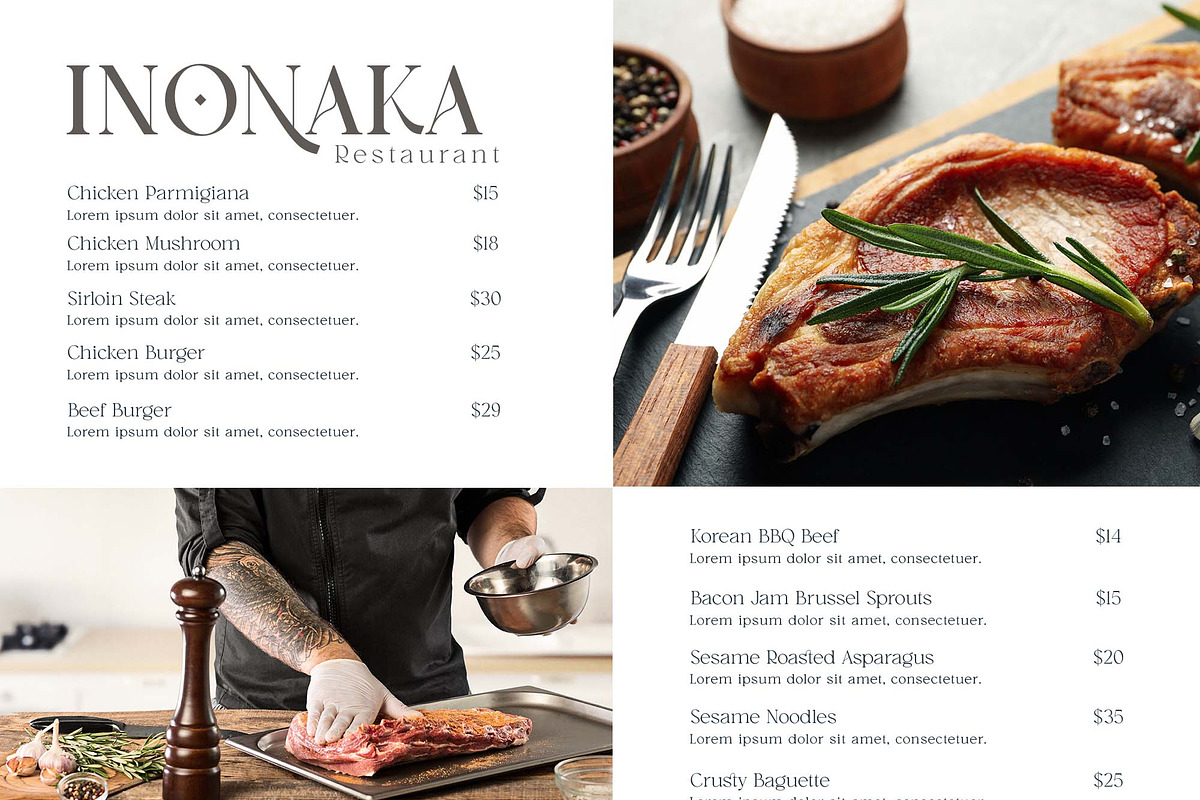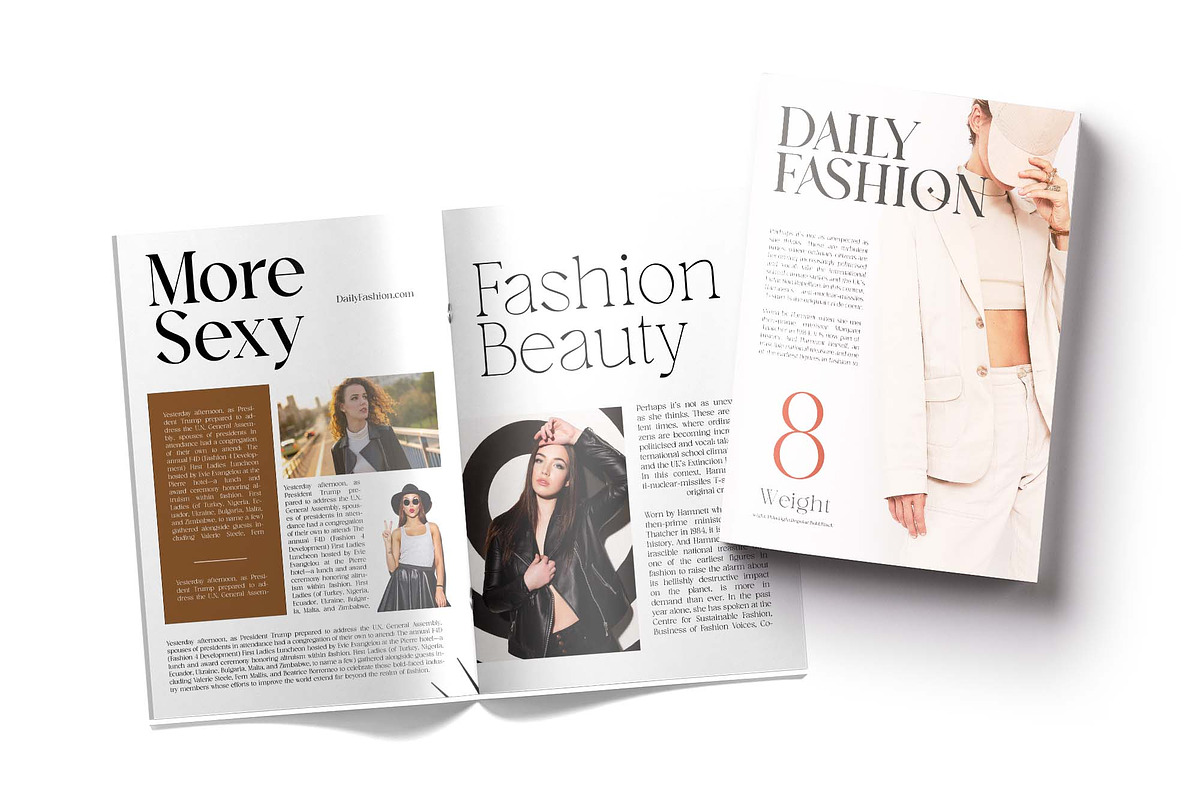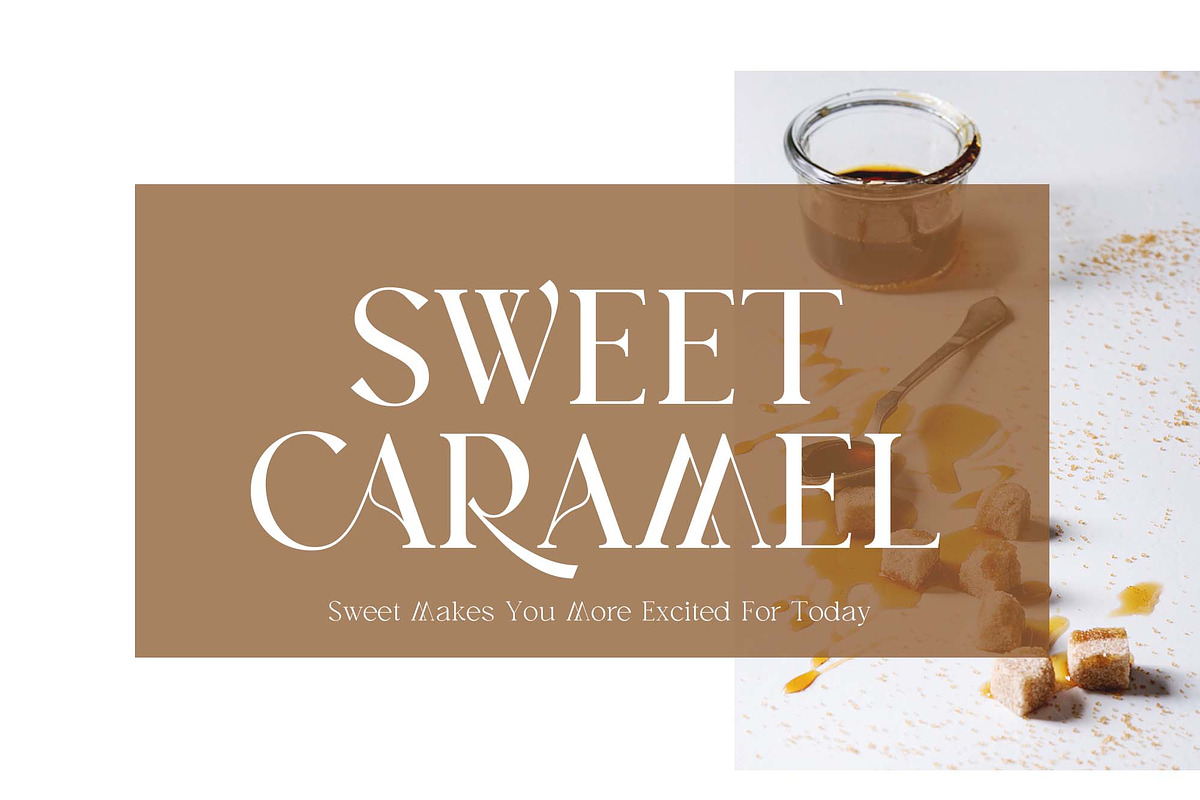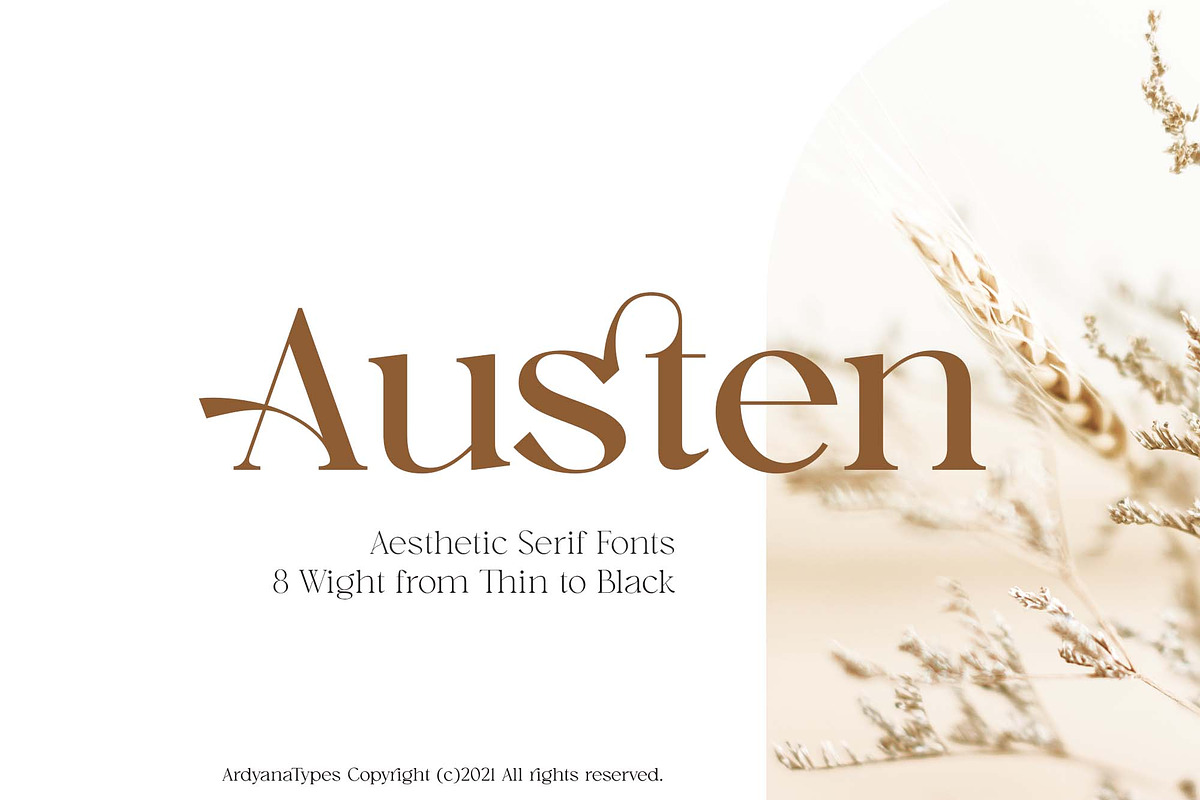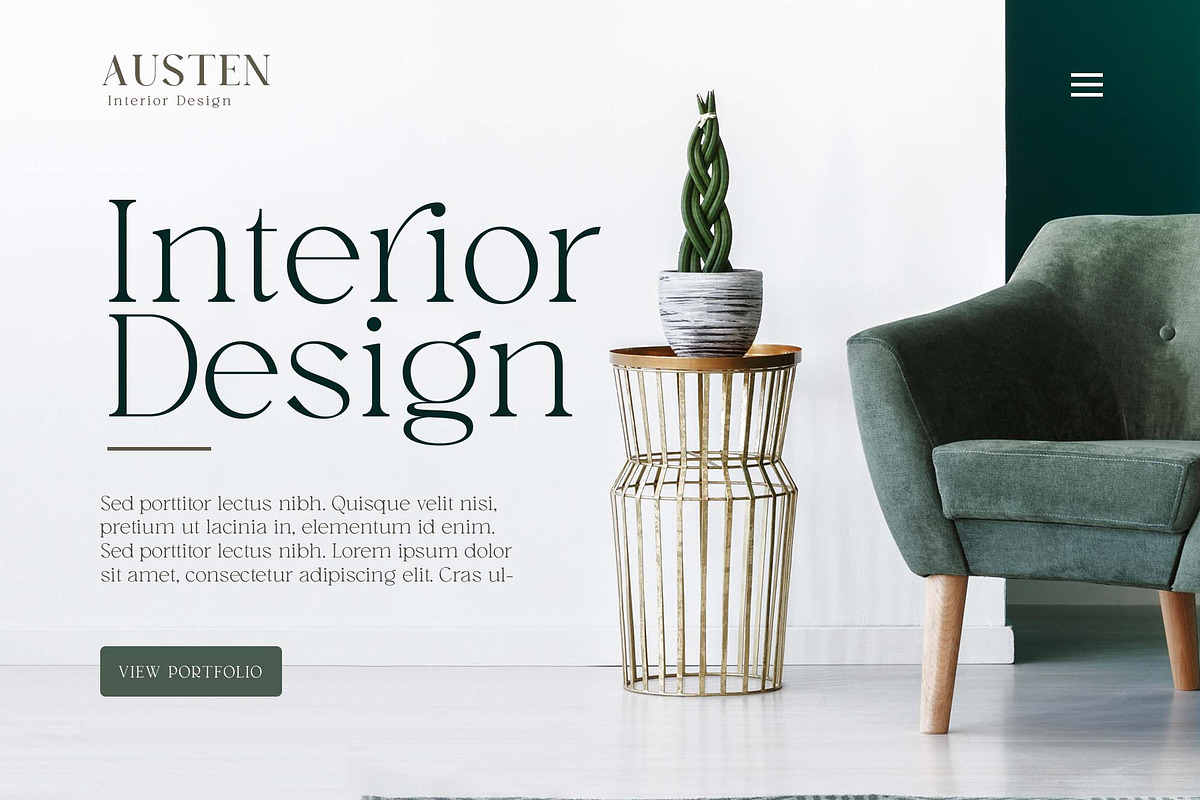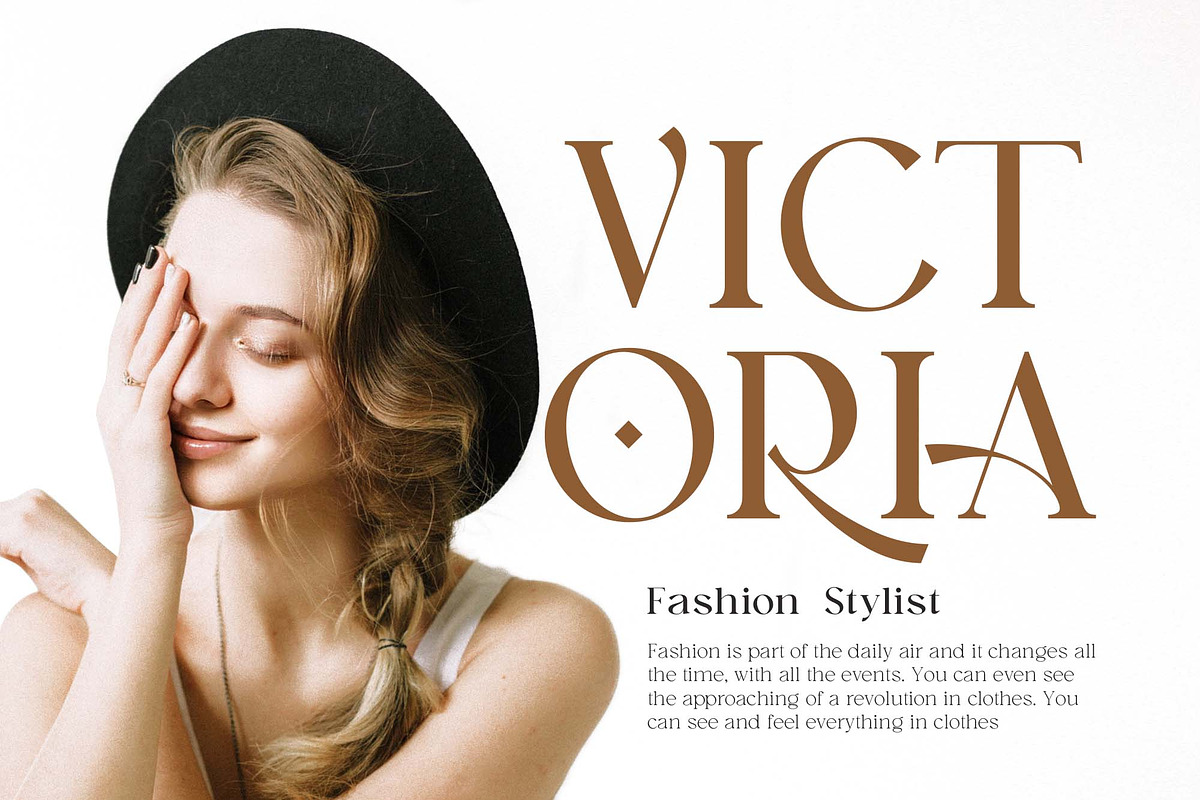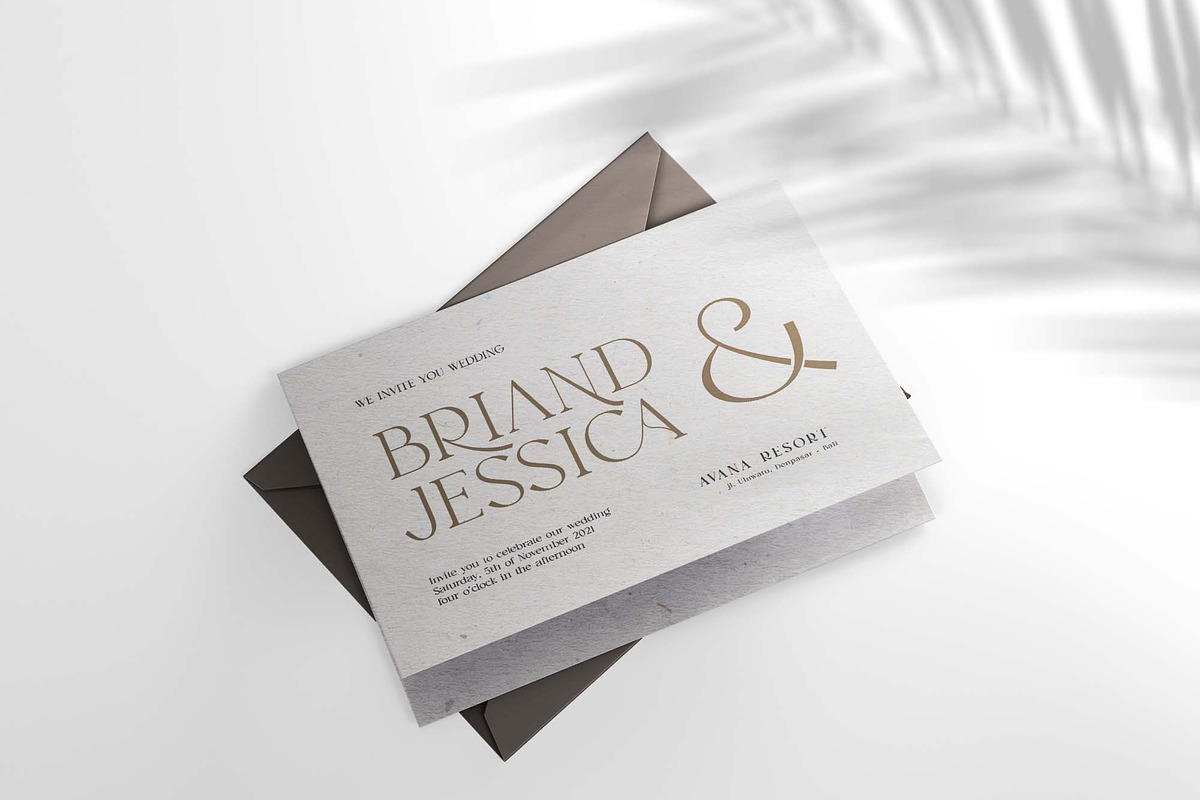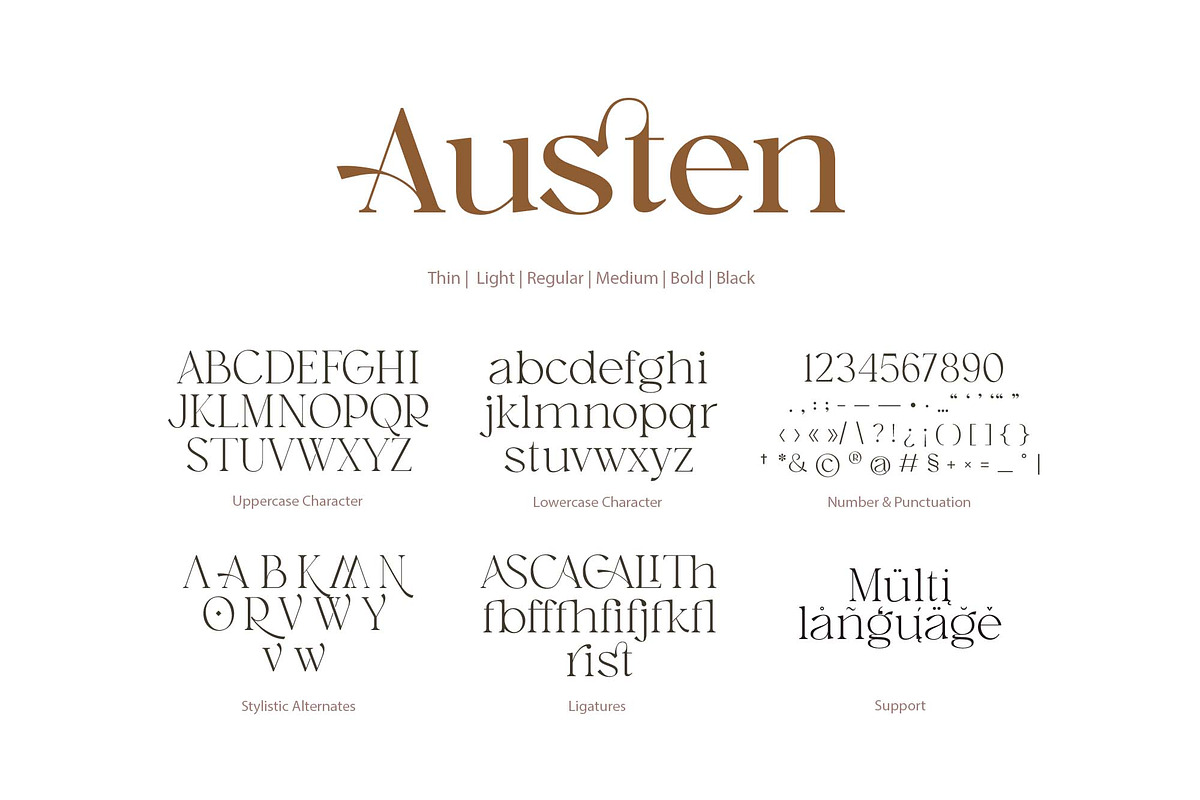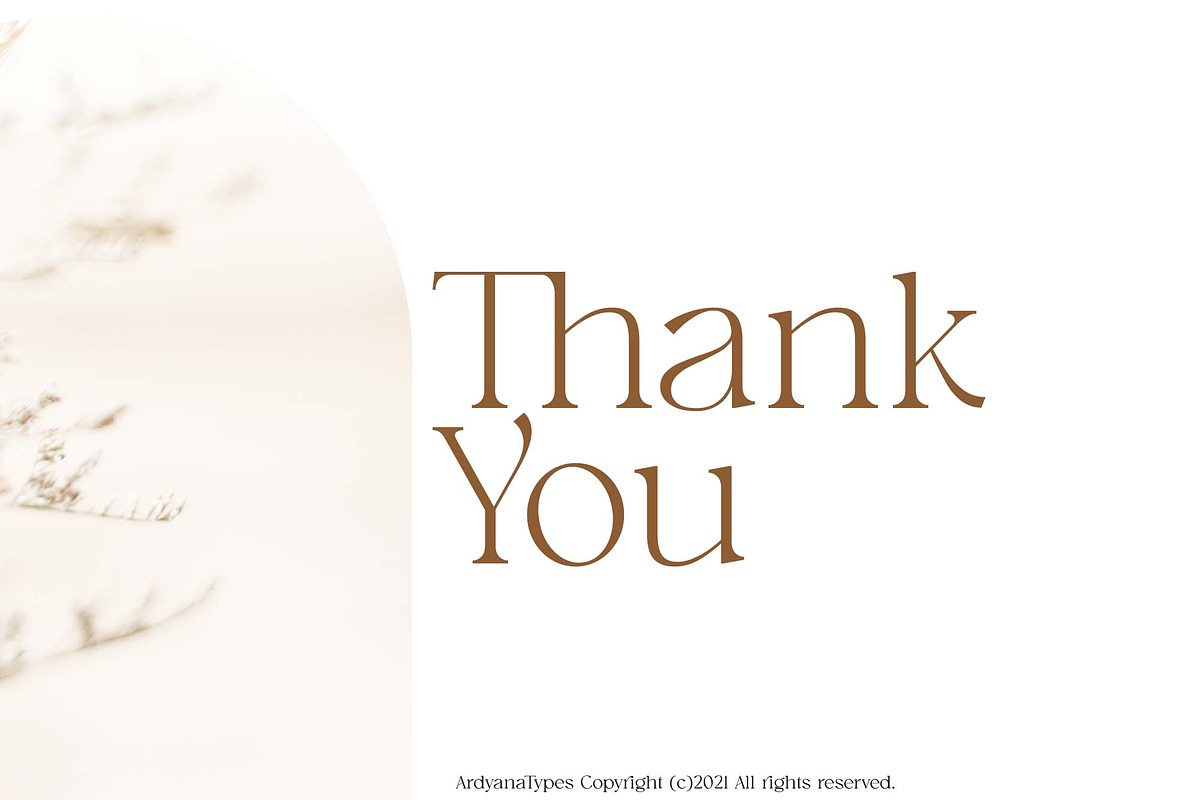
Austen - Aesthetic Serif Font
Austen comes with an aesthetic style, and the serif-type tagline is modern and elegant. This font comes with eight thickness levels, from thin to black to suit your needs. Austen is also equipped with current professional characteristics that can present an elegant and attractive identity for your company or project for business purposes. It pairs well with modern serifs and scripts pictured or stands firm as a title and brand representative for an elegant look.
Austen also comes with multiple languages, making it easy to use for any country and language use. It also comes with alternative Ligatures and stylistics to make your designs more appealing. Austen is suitable for branding projects and various design purposes such as business cards, name tags, uniforms as a brand enhancement. Advertising, posters, invitations, branding, logos, magazines, merchandise, presentations, etc.
A – Z Character Set
a – z Characters set
Numerals & Punctuations (OpenType Standard)